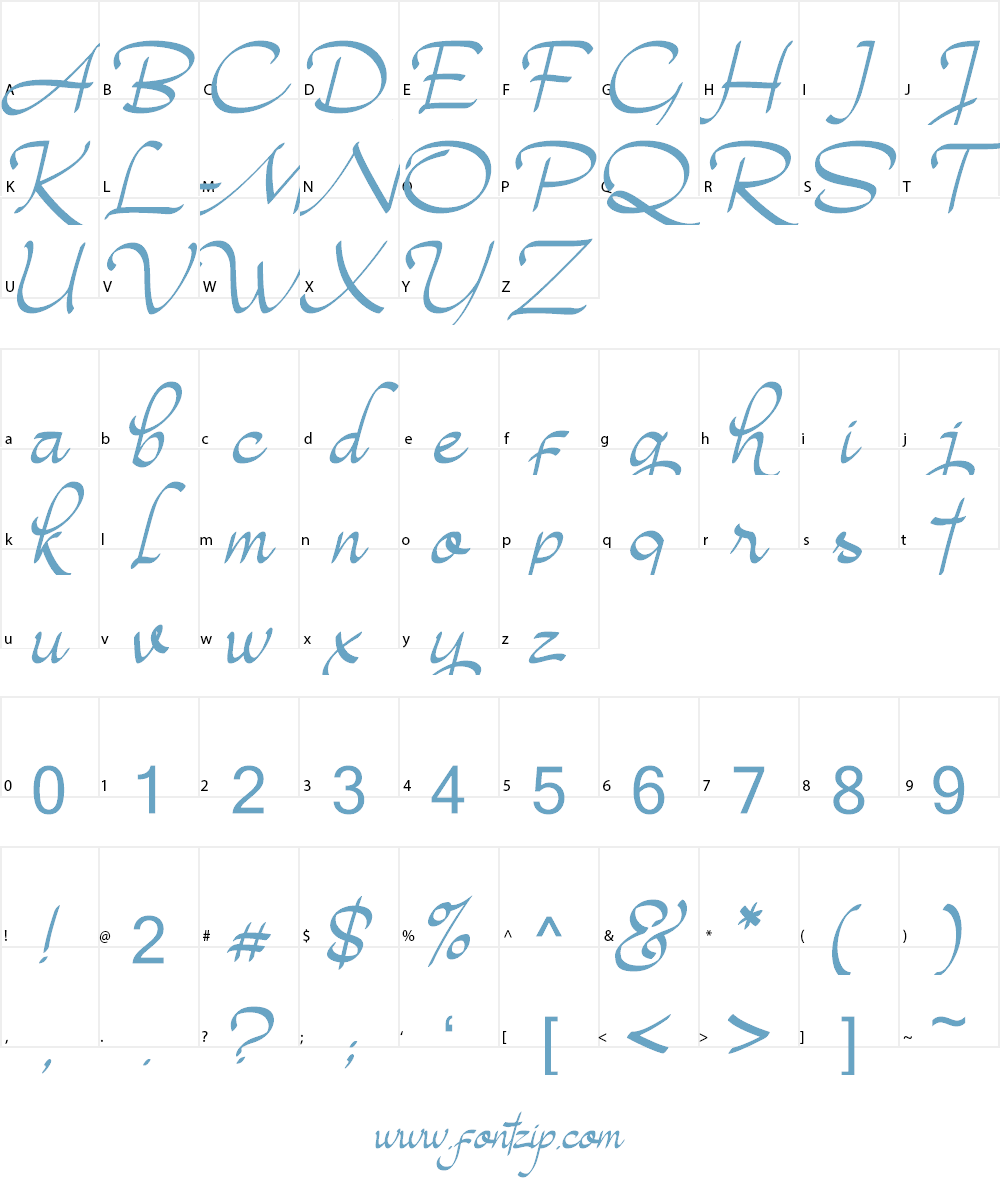
Magenta Rose perfectly for magazines, books, wedding invitations, product labels, print, branding, social media post, etc
Every letter was carefully crafted and connections are smooth.